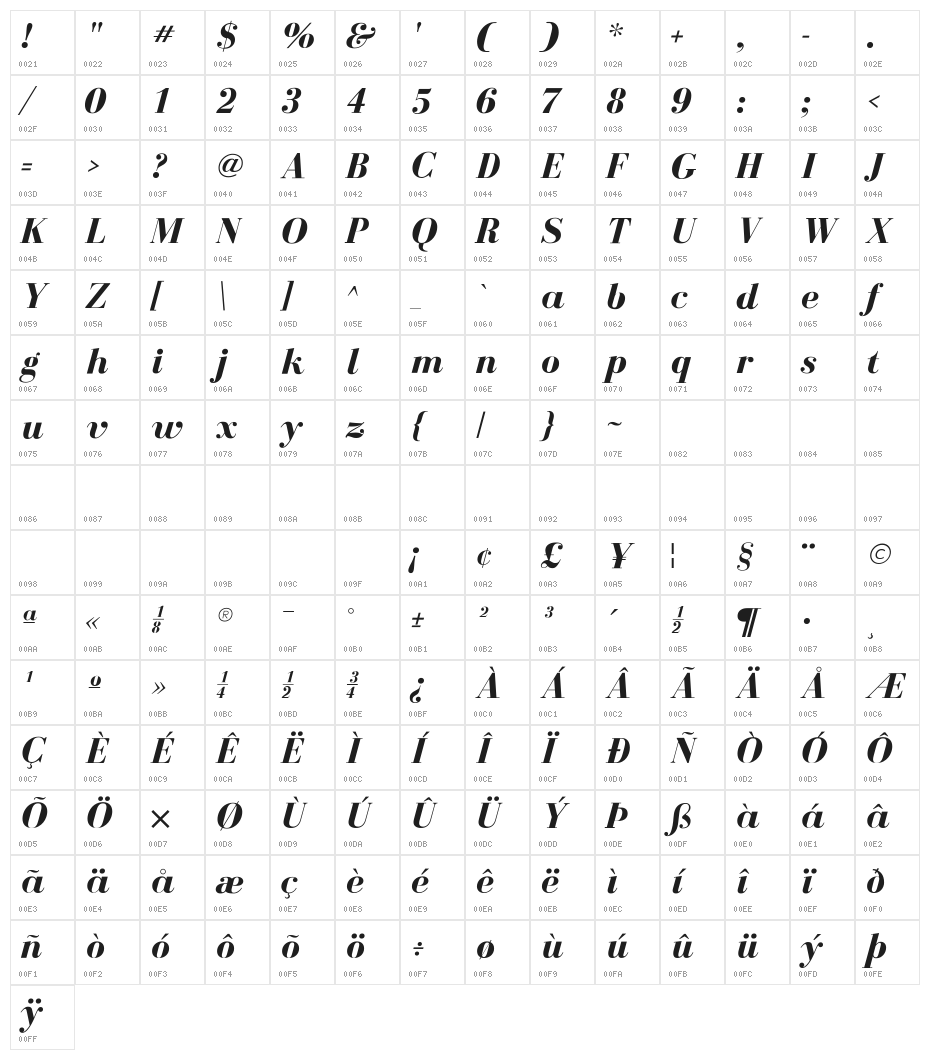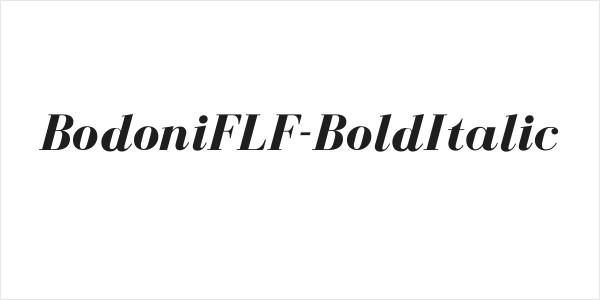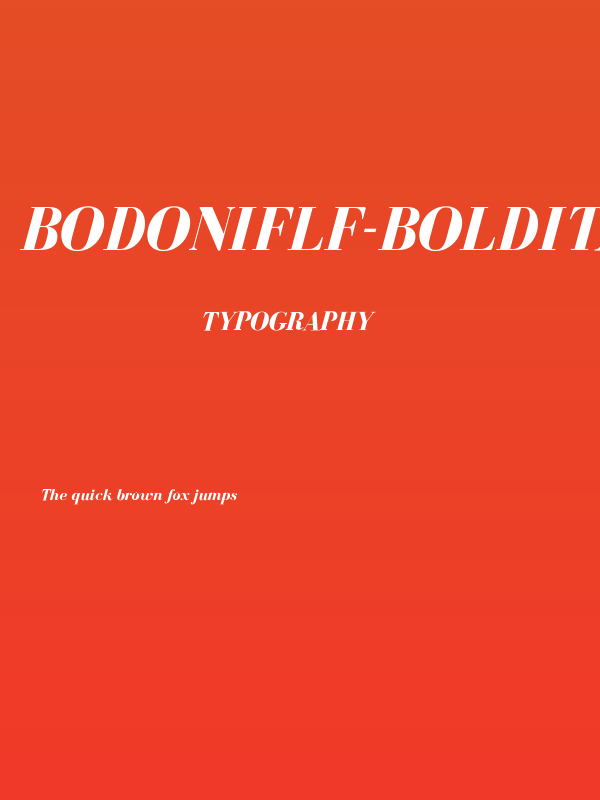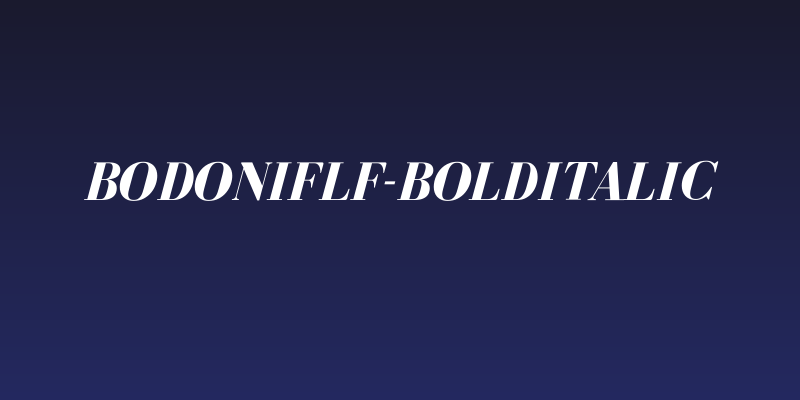
BodoniFLF-BoldItalic Font
BodoniFLF-BoldItalic Description
This font exudes a classic elegance with its high contrast between thick and thin strokes, characteristic of the Didone typeface classification. The serifs are finely bracketed, adding a touch of sophistication and formality. The italic style introduces a graceful slant, enhancing its refined appearance. The uppercase letters are stately and commanding, while the lowercase letters maintain a harmonious flow. Numerals are proportionate and align well with the overall aesthetic. Special characters are thoughtfully designed, maintaining the font's cohesive look. This font is ideal for projects that require a touch of timeless elegance and sophistication.
| Use Case | Headlines, Logos, Editorial design |
| Proposed Projects | Ideal for luxury branding, editorial design, wedding invitations, and high-end product packaging. |